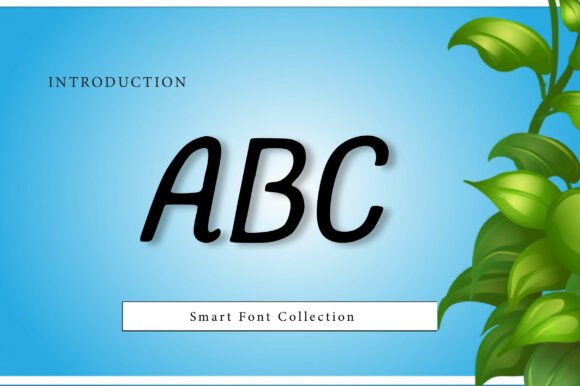
Bringing Hand-Drawn Warmth to Digital Projects with Dainty Scrip Font
In the realm of digital design, finding the perfect font that adds a touch of personality and warmth can be a daunting task. However, with the Dainty Scrip font, designers and crafters can now infuse their projects with a charming, hand-drawn feel that’s both personal and effortless. This delightful display font is specifically crafted to mimic the look of a quick note written with a fine-tip pen, complete with a casual, handwritten flow and a slight slant that exudes authenticity.
The Characteristics of Dainty Scrip Font
The Dainty Scrip typeface boasts a range of characteristics that make it an ideal choice for designers seeking to add a touch of elegance and sophistication to their projects. Some of its key features include:
- Casual, handwritten flow: The Dainty Scrip font features a fluid, organic feel that’s reminiscent of handwritten notes.
- Slight slant: The font’s subtle slant adds a touch of personality and whimsy to any design.
- Consistent stroke weight: The Dainty Scrip font’s consistent stroke weight ensures excellent legibility, even at smaller sizes.
Ideal Applications for Dainty Scrip Font
The Dainty Scrip font is incredibly versatile, making it suitable for a wide range of applications. Some of the most popular uses for this charming font include:
- Feminine branding: The Dainty Scrip font’s elegant, refined aesthetic makes it an excellent choice for feminine branding and packaging design.
- Lifestyle blogs: Add a touch of personality to your lifestyle blog with the Dainty Scrip font, perfect for headings, subheadings, and quotes.
- Personalized stationery: Create beautiful, one-of-a-kind stationery with the Dainty Scrip font, ideal for wedding invitations, thank-you notes, and more.
Design Tips and Pairing Suggestions
To get the most out of the Dainty Scrip font, consider pairing it with soft, organic textures and minimalist photography. This will help create a serene and high-end artisanal aesthetic that’s perfect for showcasing products, services, or personal stories.
Some additional design tips to keep in mind:
- Use it as a subtle watermark: Add a touch of elegance to your photography with the Dainty Scrip font, used as a subtle watermark.
- Pair it with bold fonts: Combine the Dainty Scrip font with bold, sans-serif fonts for a striking contrast.
- Experiment with colors: Try pairing the Dainty Scrip font with soft, pastel colors or rich, jewel-toned hues to add depth and personality to your design.
The Benefits of Using Dainty Scrip Font
The Dainty Scrip font offers a range of benefits for designers and crafters, including:
- Unique and authentic look: The Dainty Scrip font’s hand-drawn aesthetic adds a touch of personality and whimsy to any design.
- Excellent legibility: The font’s consistent stroke weight ensures that it’s easy to read, even at smaller sizes.
- Versatility: The Dainty Scrip font is suitable for a wide range of applications, from branding and packaging to stationery and web design.
Overall, the Dainty Scrip font is an excellent choice for designers and crafters seeking to add a touch of hand-drawn warmth to their digital projects. Its charming, authentic aesthetic and versatility make it an ideal choice for a wide range of applications.